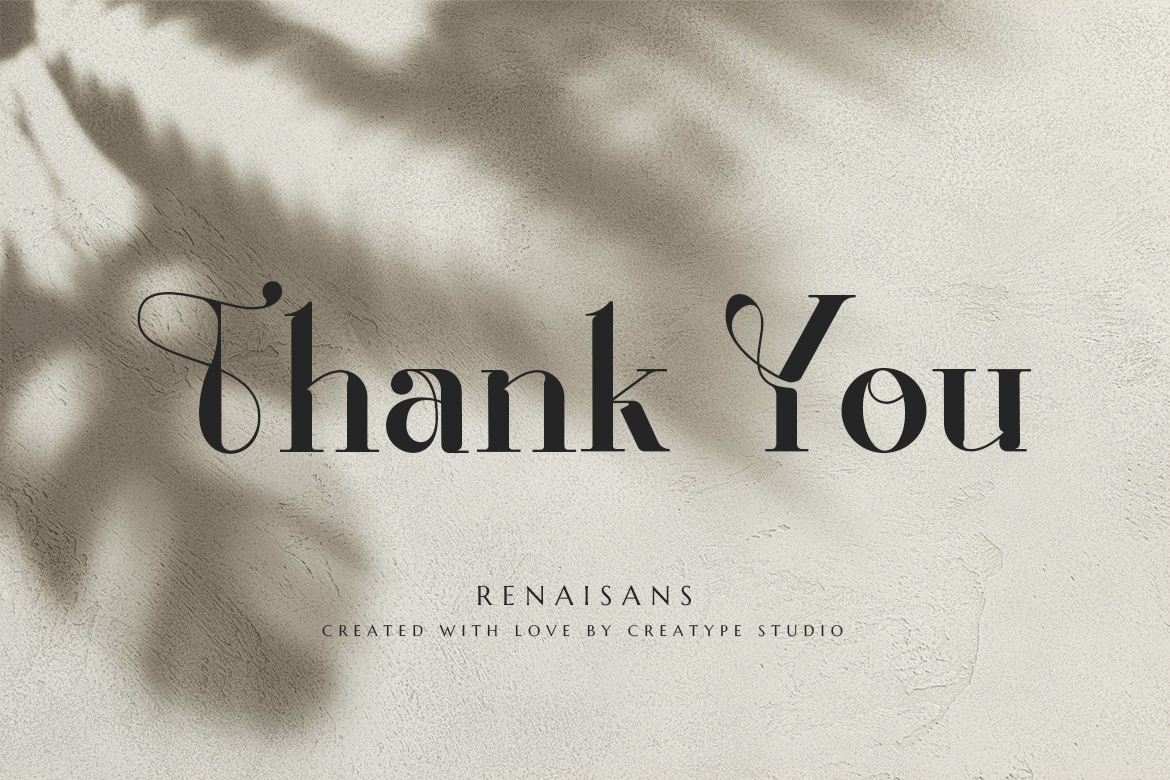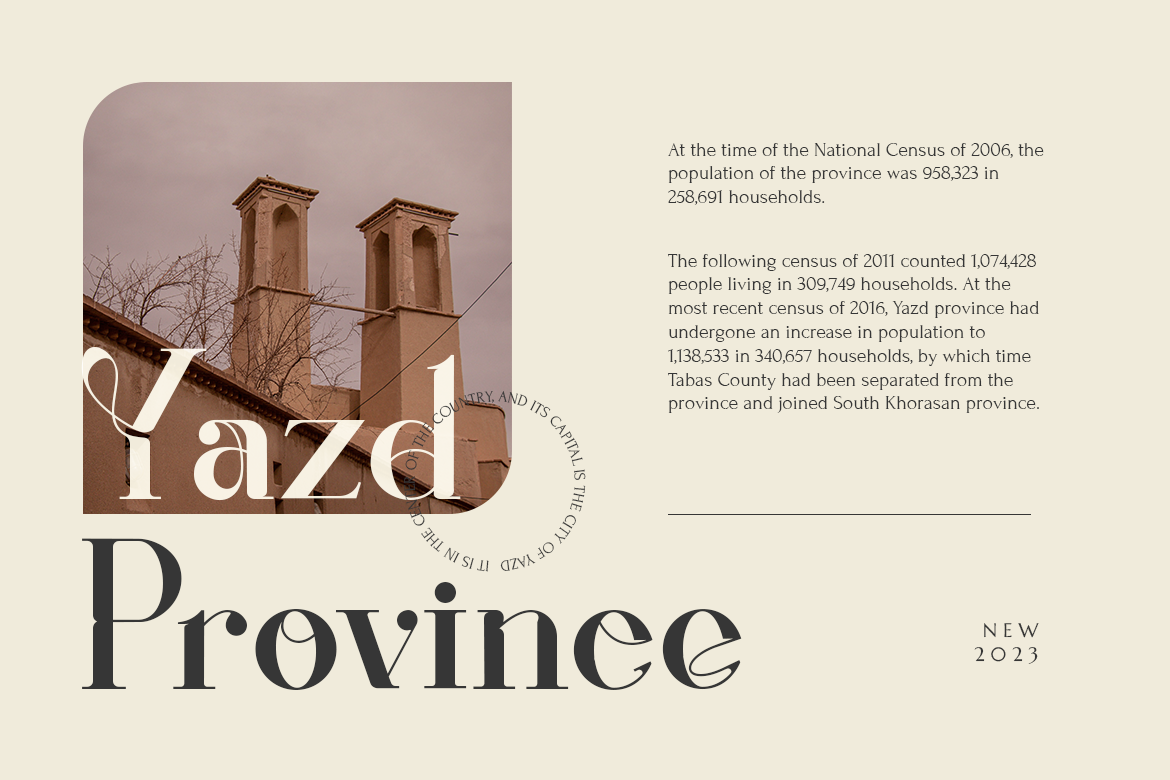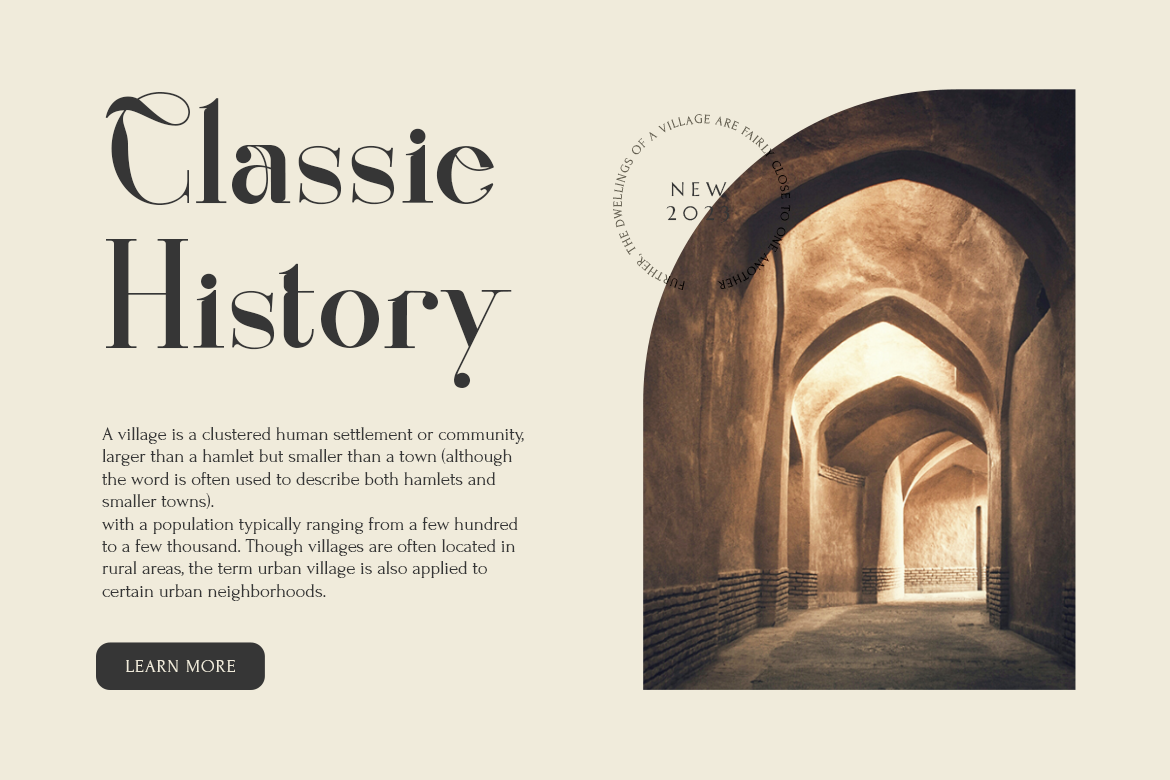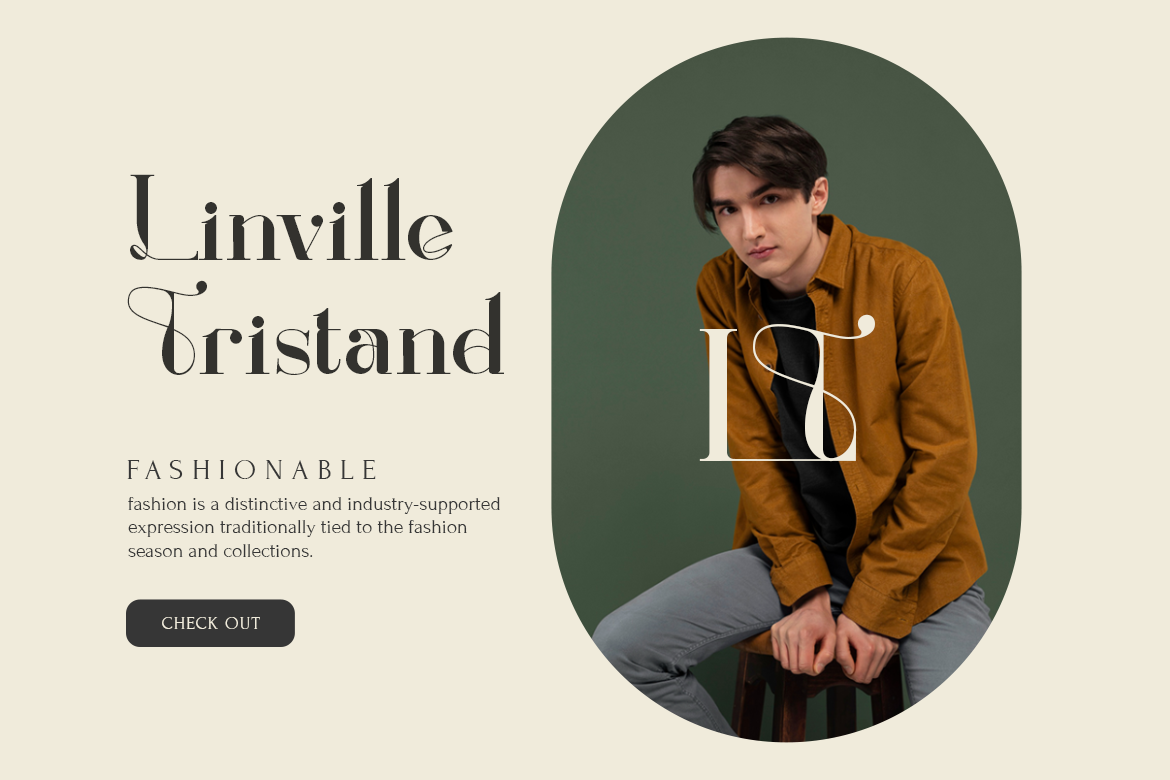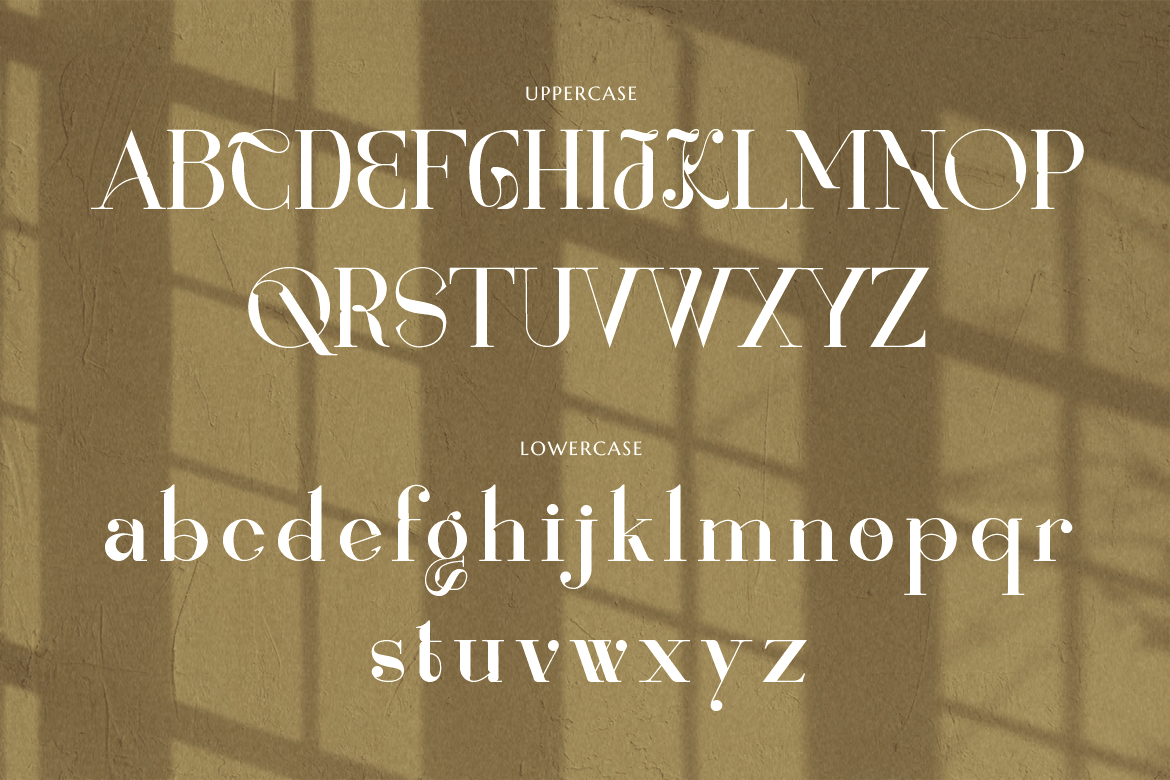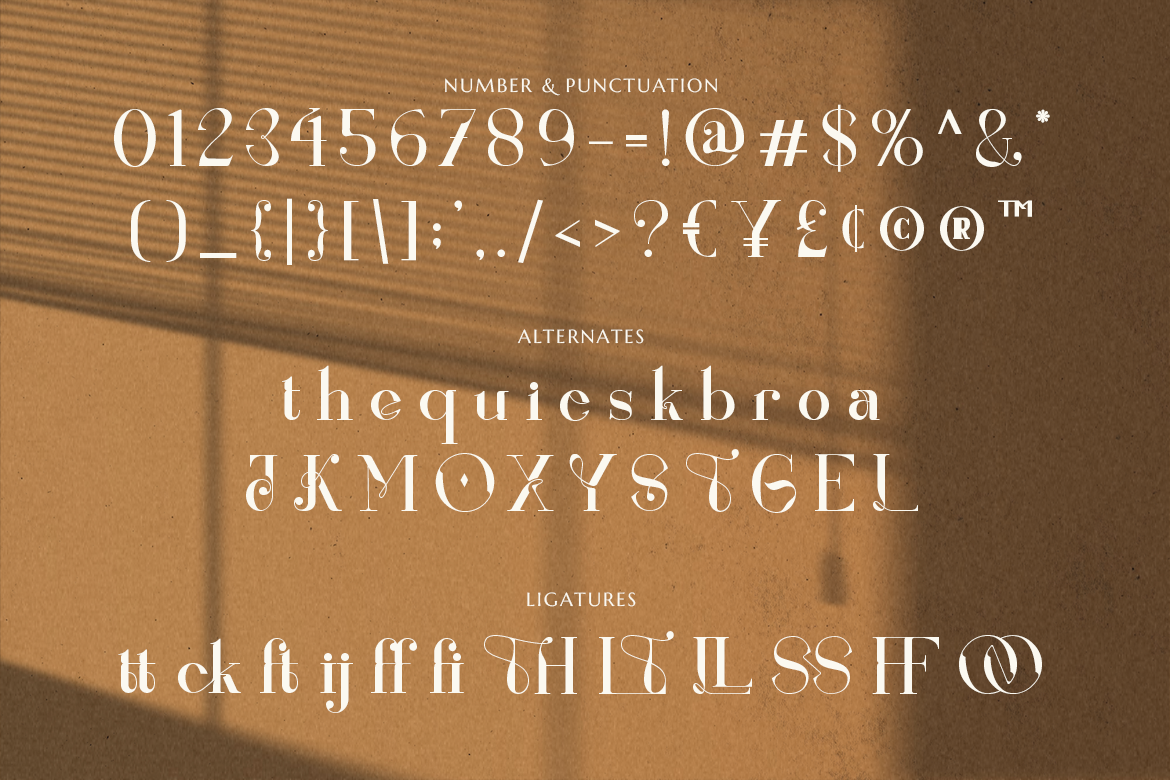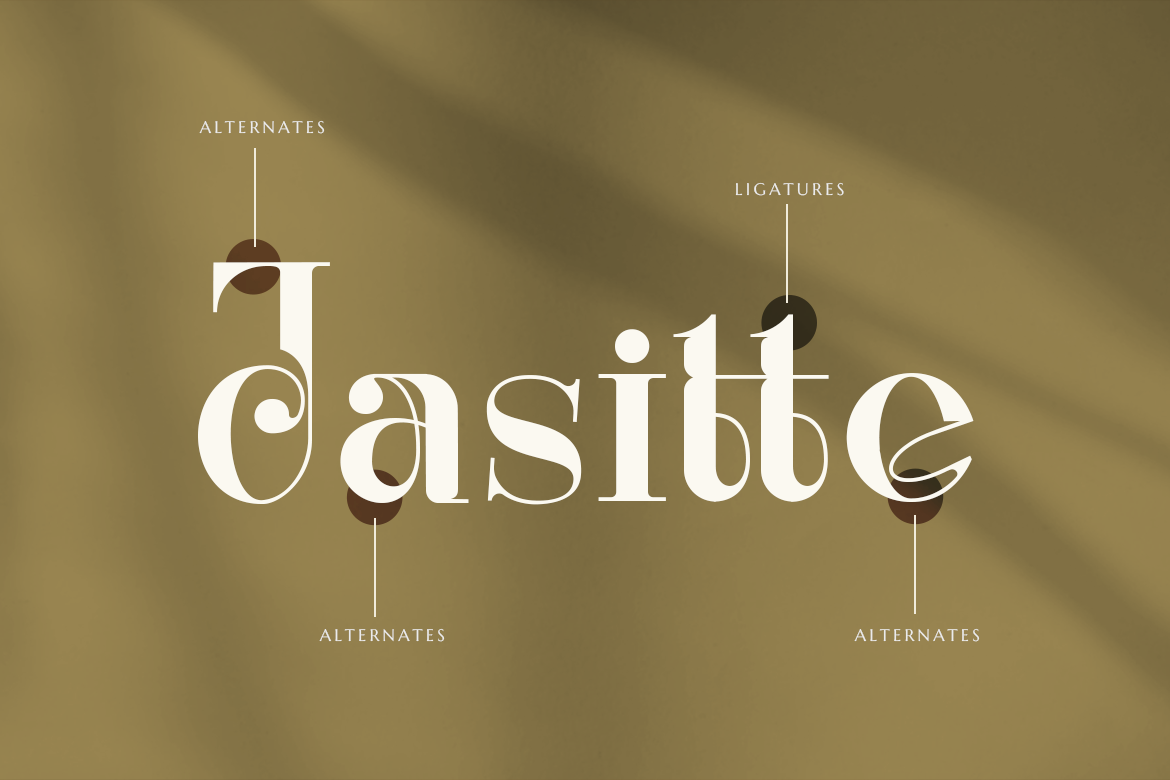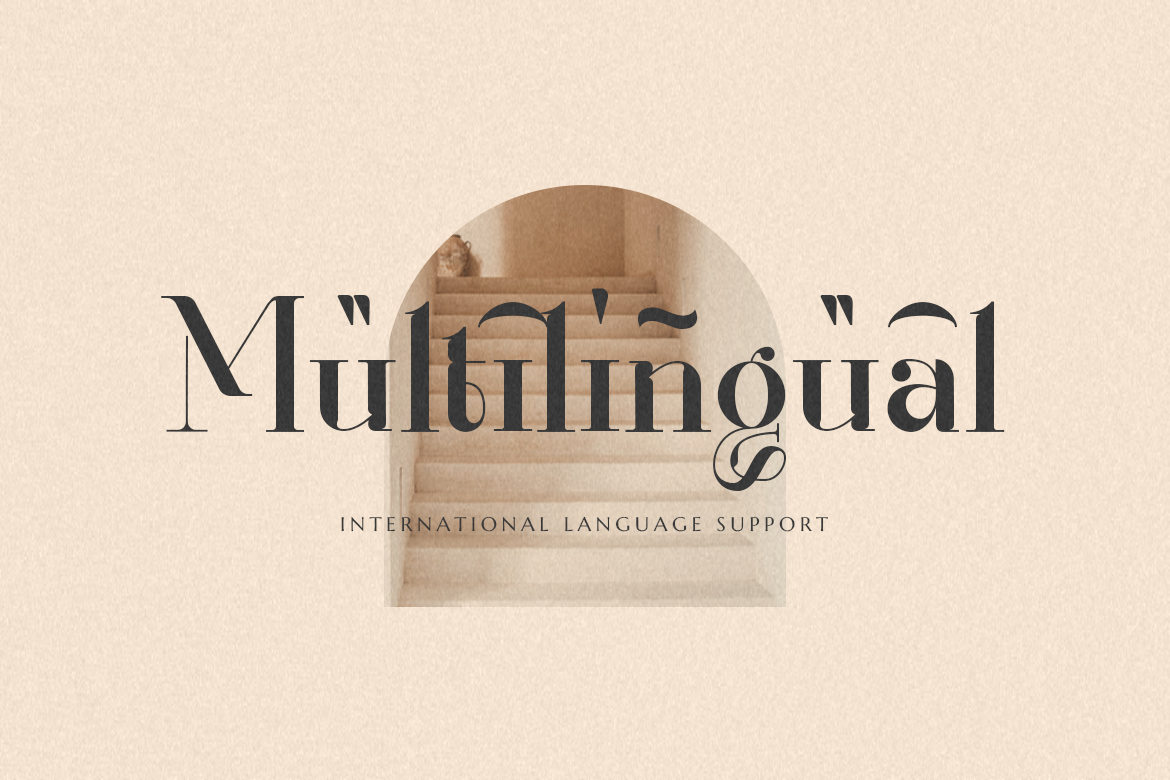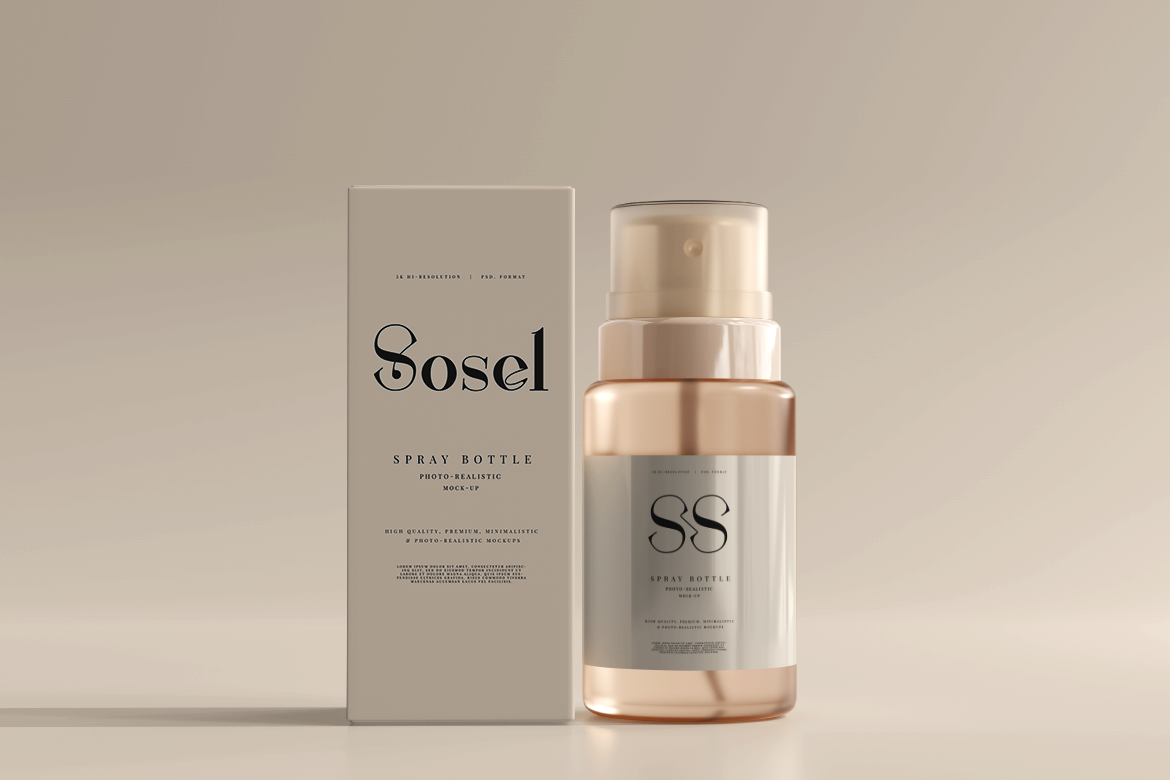
Renaisans, an eye-catchy typeface that’s bold and curvy. This kind of typeface will give a dramatic look but still have a unique look.
Renaisans is perfect for branding projects, logo, wedding designs, social media posts, advertisements, product packaging, product designs, label, photography, watermark, invitation, stationery and any projects that need handwriting taste.
• Ton of glyphs
• Ligature & Alternate
• Fonts include multilingual support for; Afrikaans, Albanian, Czech, Danish, Dutch, English, Estonian, Finnish, French, German, Hungarian, Italian, Latvian, Lithuanian, Norwegian, Polish, Portuguese, Slovak, Slovenian, Spanish, Swedish.